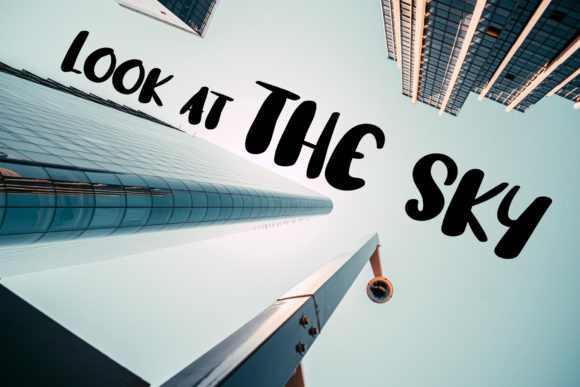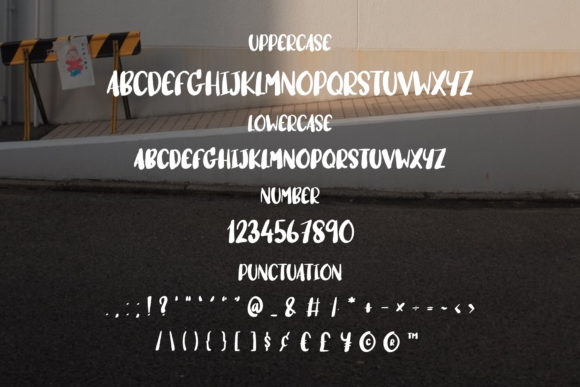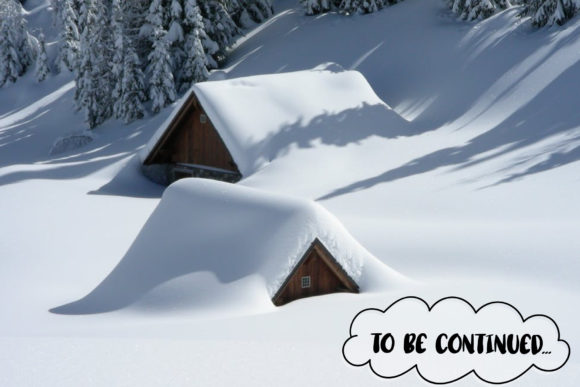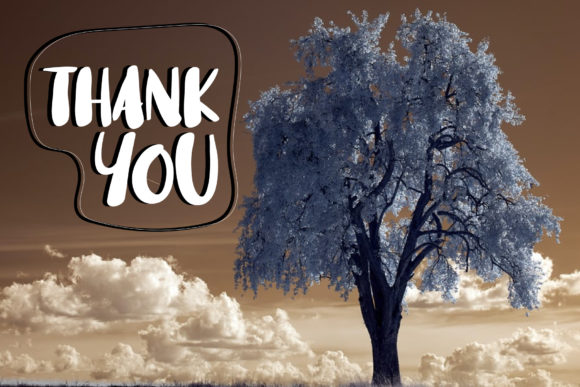
Introducing Ambiguous Font: The Ultimate Display Font for Modern Designers and Crafters
In the world of typography, fonts play a crucial role in conveying messages, expressing emotions, and creating visual identities. For designers, crafters, and digital artists, finding the perfect font can be a daunting task. However, if you’re looking for a thick lettered display font that exudes trendiness and versatility, look no further than Ambiguous Font.
What is Ambiguous Font?
Ambiguous is a stylish and modern display font that boasts a thick lettered design, making it perfect for a wide range of applications. Whether you’re working on a digital project, crafting a greeting card, or creating a presentation, Ambiguous Font is the ideal choice. Its unique blend of boldness and elegance makes it a standout in the world of typography.
Key Features of Ambiguous Font
• Thick Lettered Design: Ambiguous Font features thick, sturdy letters that make it perfect for headlines, titles, and short texts.
• Trendiness: The font’s modern design ensures that your projects look contemporary and stylish.
• Versatility: Use Ambiguous Font for various applications, including crafting, digital designing, presentations, and greeting cards making.
• Ease of Use: The font is easy to read and works well in both digital and print formats.
Why Choose Ambiguous Font?
So, why should designers and crafters choose Ambiguous Font for their projects? Here are a few compelling reasons:
• Perfect for Crafting: Ambiguous Font is ideal for crafters who want to add a personal touch to their projects. Use it for making greeting cards, scrapbooking, or creating DIY crafts.
• Great for Digital Designing: The font’s modern design makes it perfect for digital designers who want to create visually appealing graphics, social media posts, and website headers.
• Ideal for Presentations: Add a touch of professionalism to your presentations with Ambiguous Font. Its bold design ensures that your titles and headings stand out.
• Easy to Pair: Ambiguous Font pairs well with a variety of fonts, making it easy to create harmonious and visually appealing typography combinations.
Tips for Using Ambiguous Font
To get the most out of Ambiguous Font, here are some tips to keep in mind:
• Use it for Headings: Ambiguous Font is perfect for headings, titles, and short texts. Use it to create attention-grabbing headlines that draw the reader’s eye.
• Experiment with Colors: The font’s bold design works well with a variety of colors. Experiment with different colors to find the perfect combination for your project.
• Pair it with Other Fonts: Don’t be afraid to pair Ambiguous Font with other fonts to create visually appealing typography combinations.
In conclusion, Ambiguous Font is a versatile and stylish display font that’s perfect for designers, crafters, and digital artists. Its thick lettered design, trendiness, and ease of use make it an ideal choice for a wide range of applications. Whether you’re working on a digital project, crafting a greeting card, or creating a presentation, Ambiguous Font is sure to make your project stand out.